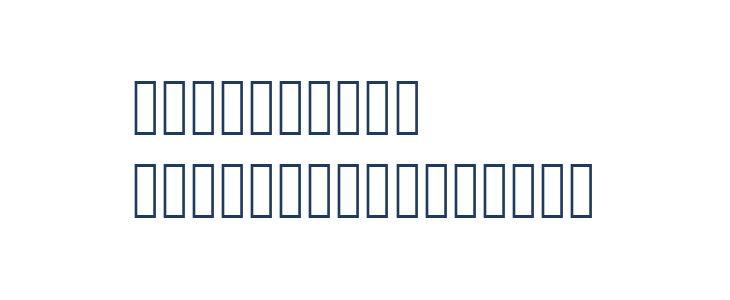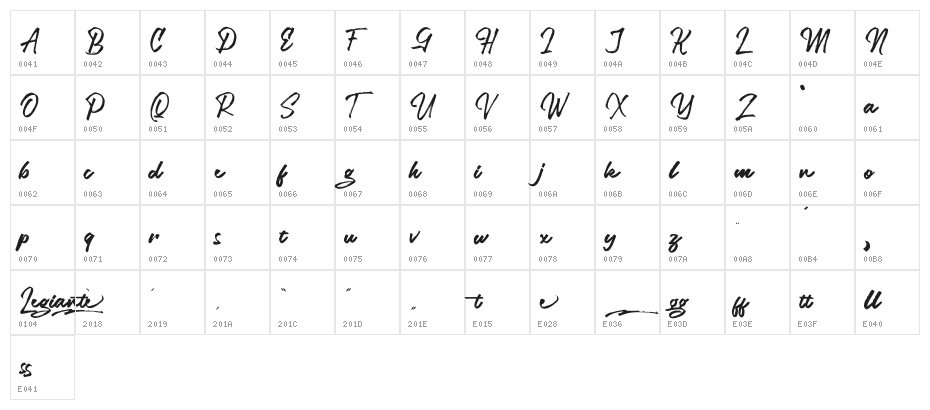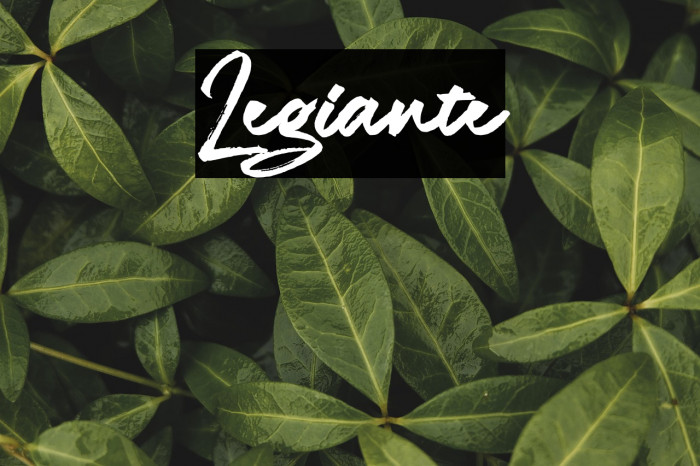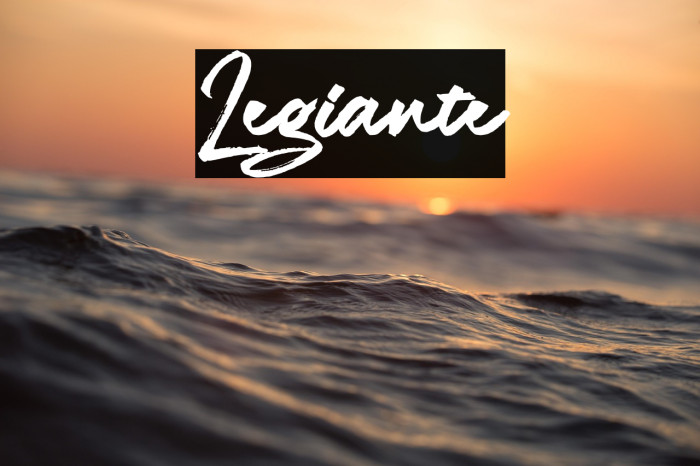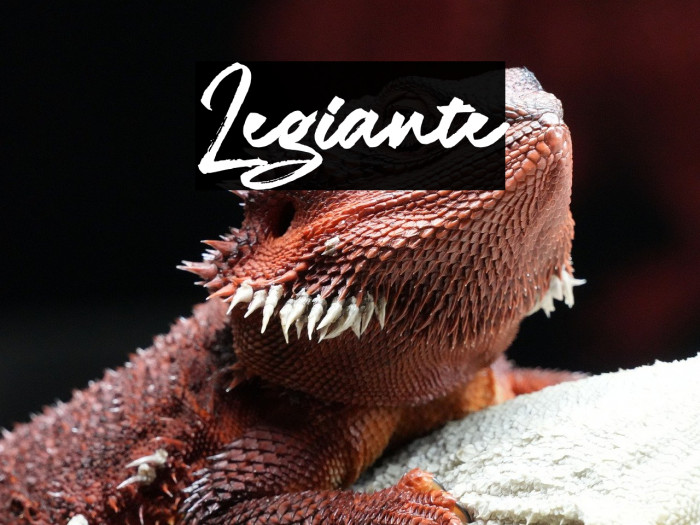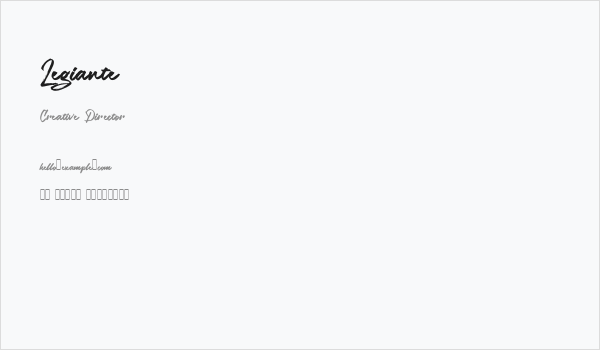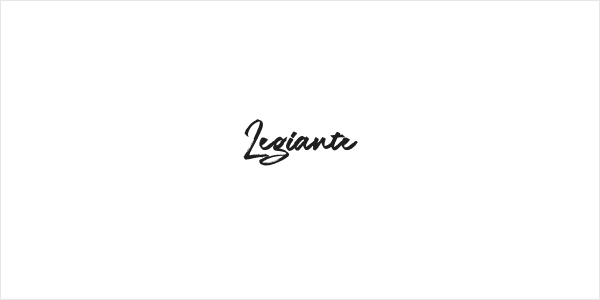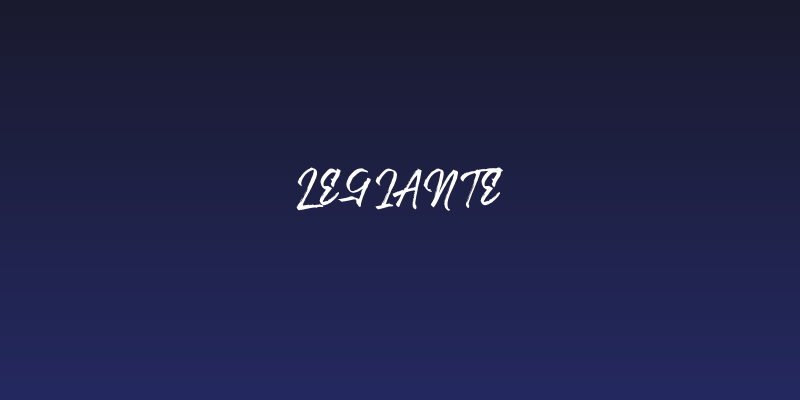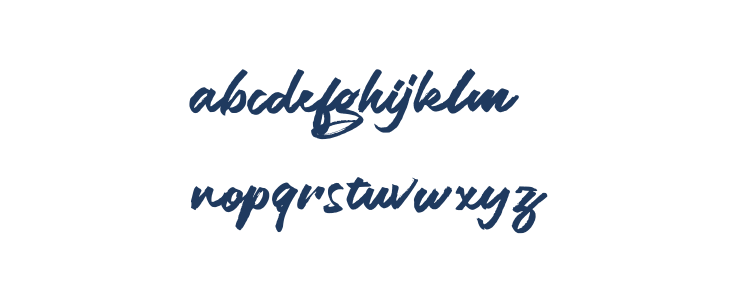
Legiante Font
Legiante Description
This font features a dynamic and expressive script style, characterized by its fluid and cursive letterforms. The uppercase letters exhibit a graceful, flowing quality with varying stroke widths, giving them a lively and energetic appearance. The lowercase letters maintain this fluidity, with some characters connecting seamlessly to others, enhancing the handwritten feel. The font's overall aesthetic is both elegant and casual, making it suitable for a variety of creative applications. The absence of special characters suggests a focus on alphabetic and numeric representation, emphasizing its use in artistic and decorative contexts.
| Use Case | Logos, Invitations, Artistic designs |
| Proposed Projects | Ideal for wedding invitations, greeting cards, branding projects, and artistic designs. |